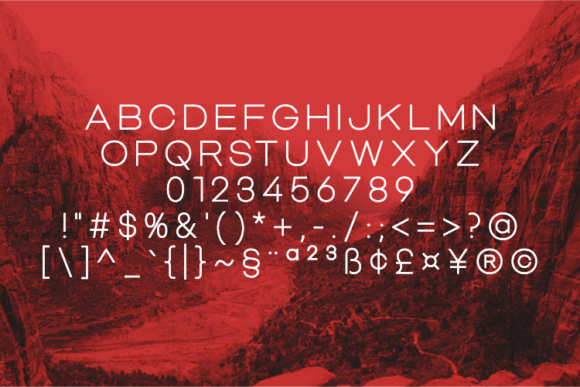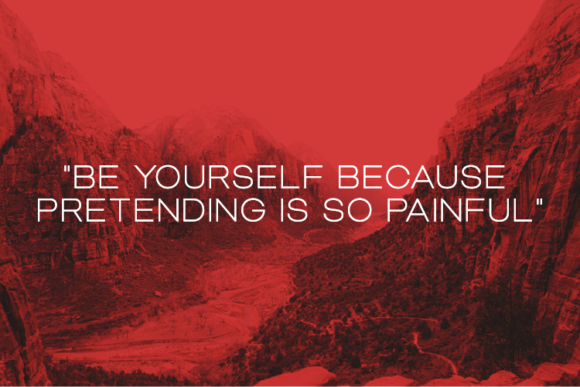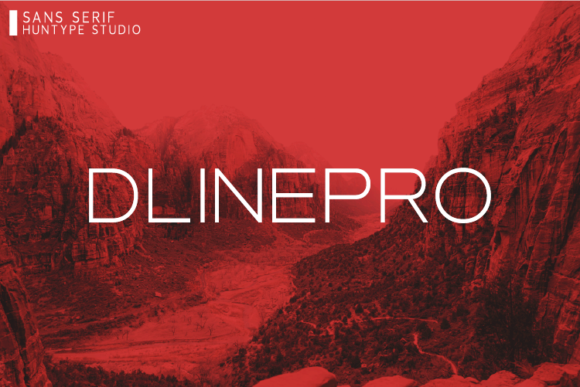
Dlinepro Font: Elevate Your Designs with a Modern and Clean Sans Serif
In the world of typography, a font can make or break a design. As a designer or crafter, you’re constantly on the lookout for the perfect typeface to elevate your projects. Look no further than Dlinepro, a modern and clean sans serif font that’s versatile and looks great in just about any context.
The Characteristics of Dlinepro
Dlinepro boasts smooth and clean lines, with just a touch of contrast that sets it apart from other sans serif fonts. Its sleek and minimalist aesthetic makes it perfect for a wide range of applications, from logos and branding to web headings and more.
One of the standout features of Dlinepro is its exceptional legibility. The font’s carefully crafted letterforms ensure that your text remains clear and easy to read, even at smaller sizes. This makes it an excellent choice for body text, as well as for headlines and titles.
What Makes Dlinepro So Versatile?
Dlinepro’s versatility is one of its greatest strengths. The font’s neutral and clean design allows it to blend seamlessly into a wide range of design contexts, from modern and edgy to minimalist and sophisticated.
Whether you’re designing a logo for a tech startup, creating a brand identity for a fashion label, or crafting a website for a creative agency, Dlinepro is the perfect choice. Its adaptability also makes it an excellent option for crafters, who can use it to add a professional touch to their handmade projects.
When it comes to creating a strong brand identity, typography plays a crucial role. Dlinepro’s clean and modern design makes it an excellent choice for logos, as it instantly conveys a sense of professionalism and sophistication.
The font’s versatility also allows it to be used in a variety of branding applications, from business cards to letterheads, and even merchandise. With Dlinepro, you can create a cohesive brand identity that looks great across all platforms.
Web-Friendly and Accessible
In today’s digital age, having a web-friendly font is essential. Dlinepro is optimized for use on the web, with a range of weights and styles that ensure it looks great on any device.
The font is also fully compatible with a range of web browsers and operating systems, making it an excellent choice for web designers and developers. With Dlinepro, you can create beautiful and accessible web designs that look great on desktop and mobile devices.
Tips for Using Dlinepro
To get the most out of Dlinepro, here are a few tips to keep in mind:
- Experiment with different weights and styles to add depth and contrast to your designs.
- Use Dlinepro for both headlines and body text to create a cohesive look.
- Don’t be afraid to combine Dlinepro with other fonts to create a unique and eye-catching design.
Dlinepro is a modern and clean sans serif font that’s perfect for designers and crafters looking to elevate their projects. With its smooth and clean lines, exceptional legibility, and versatility, Dlinepro is the perfect choice for a wide range of applications.